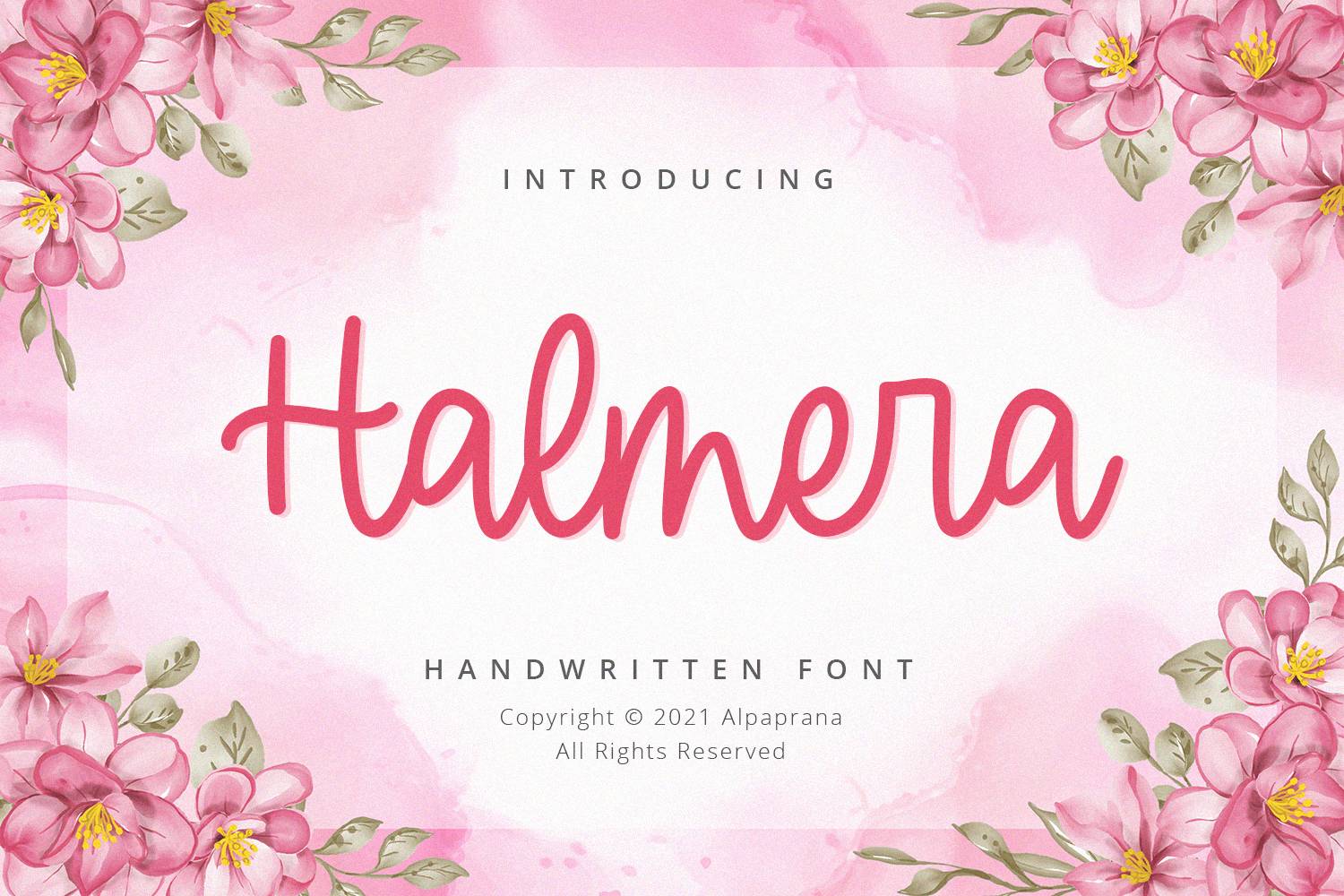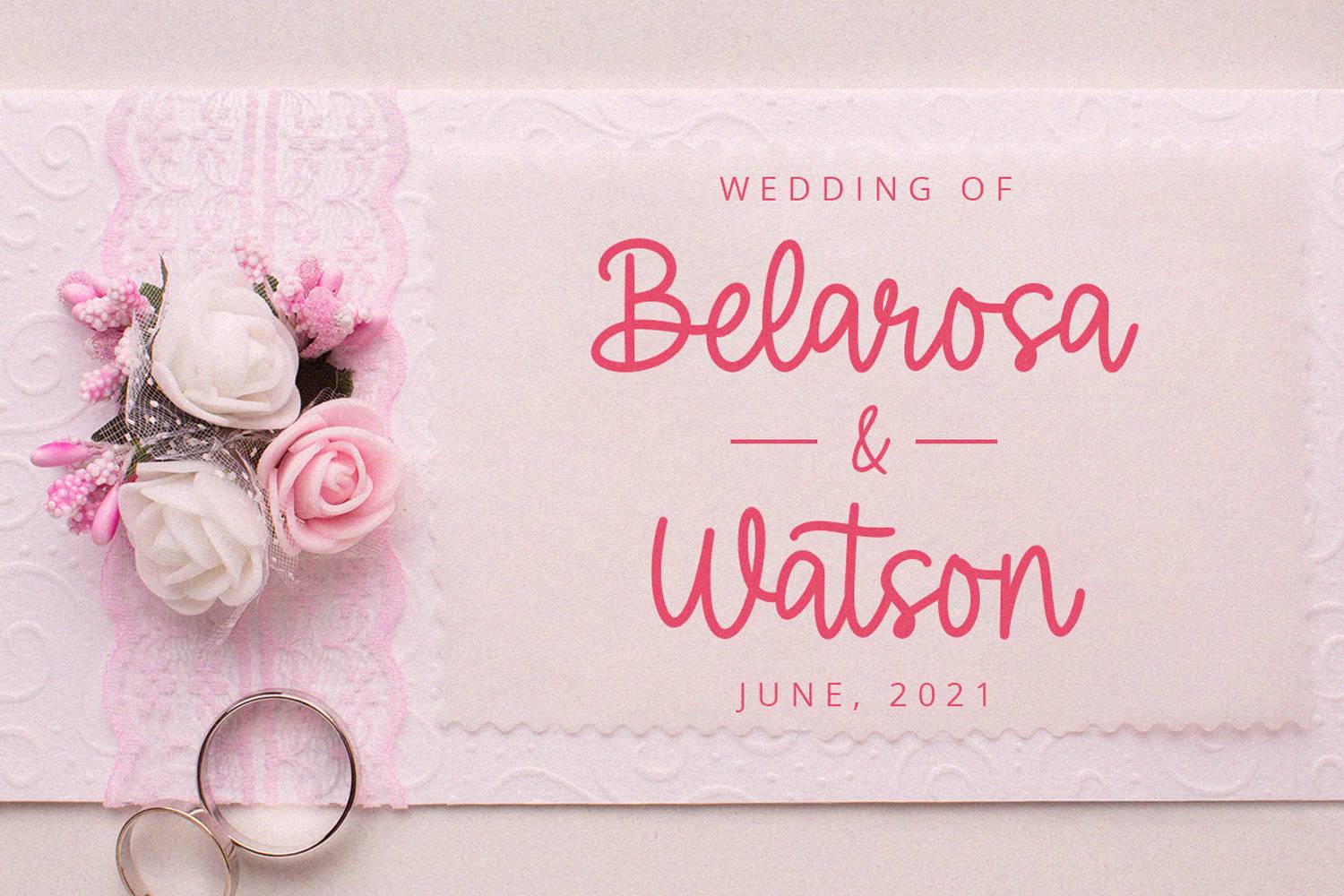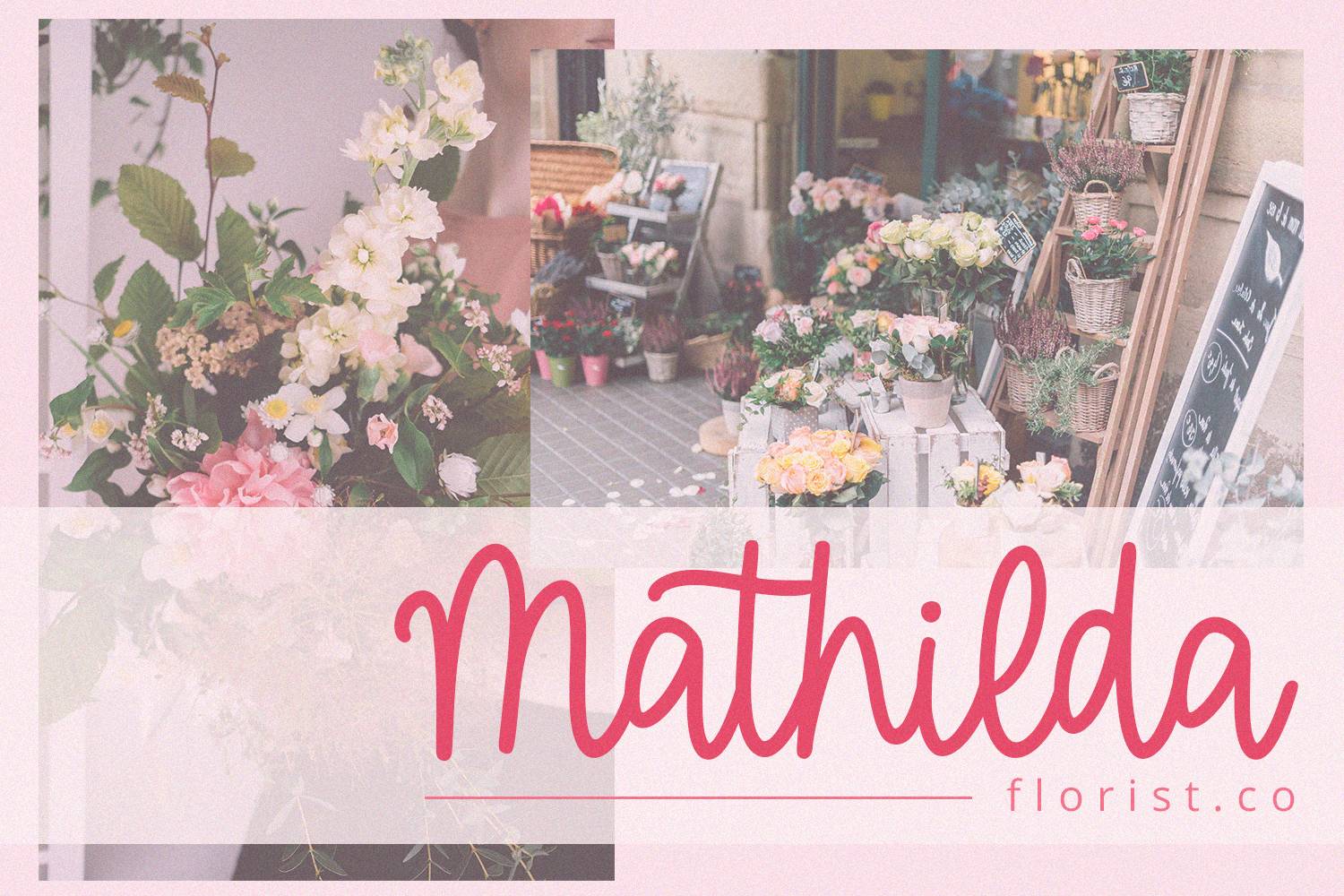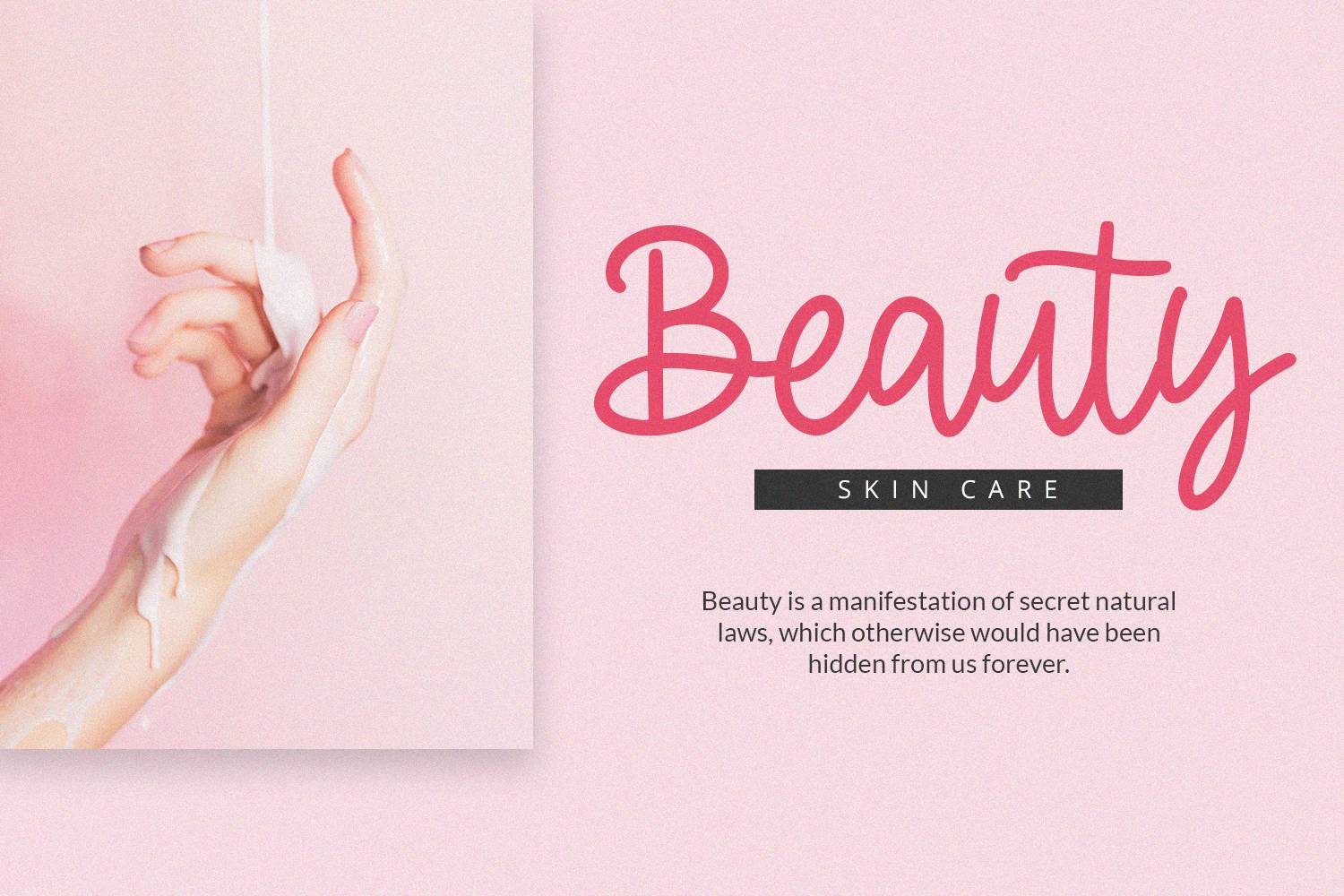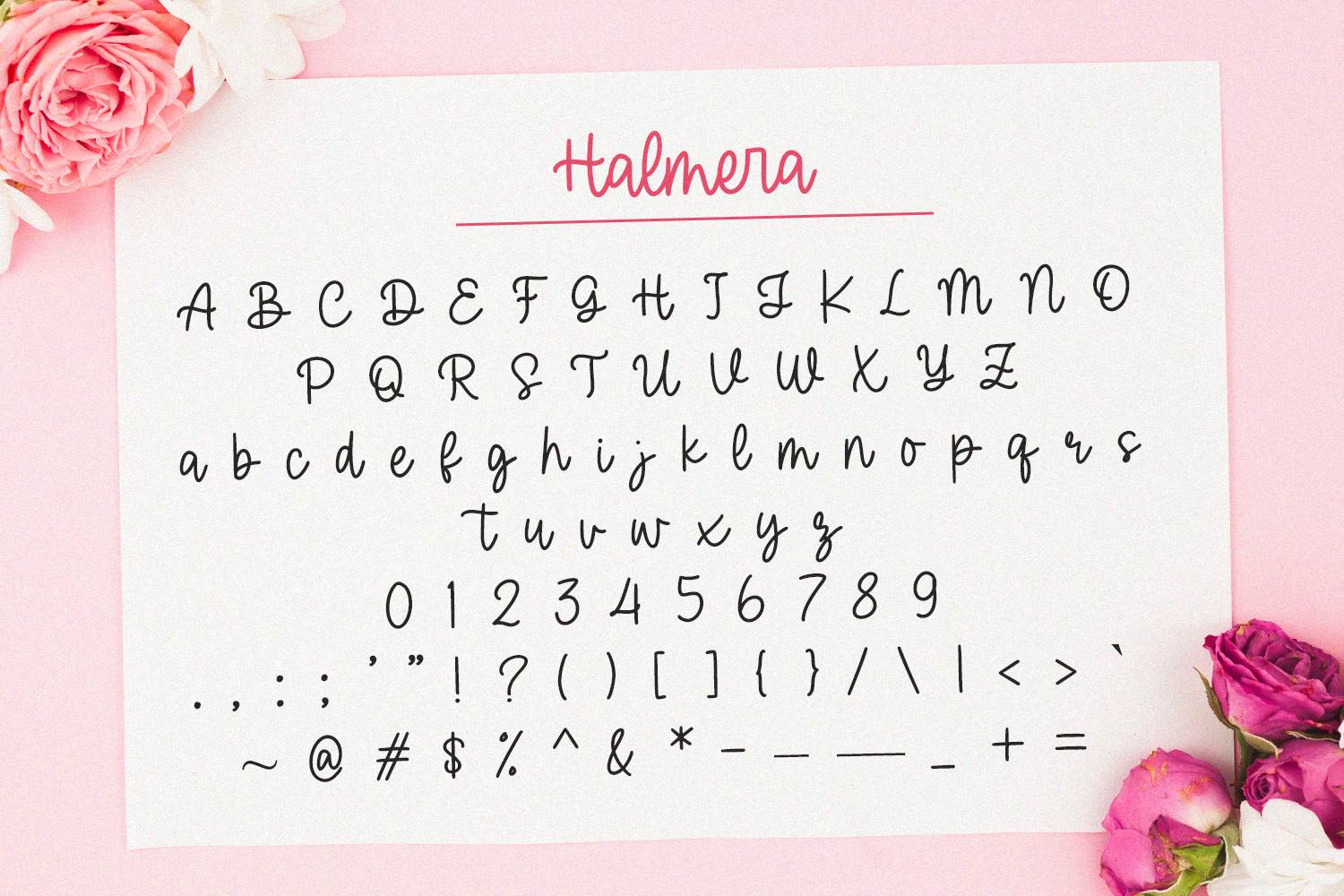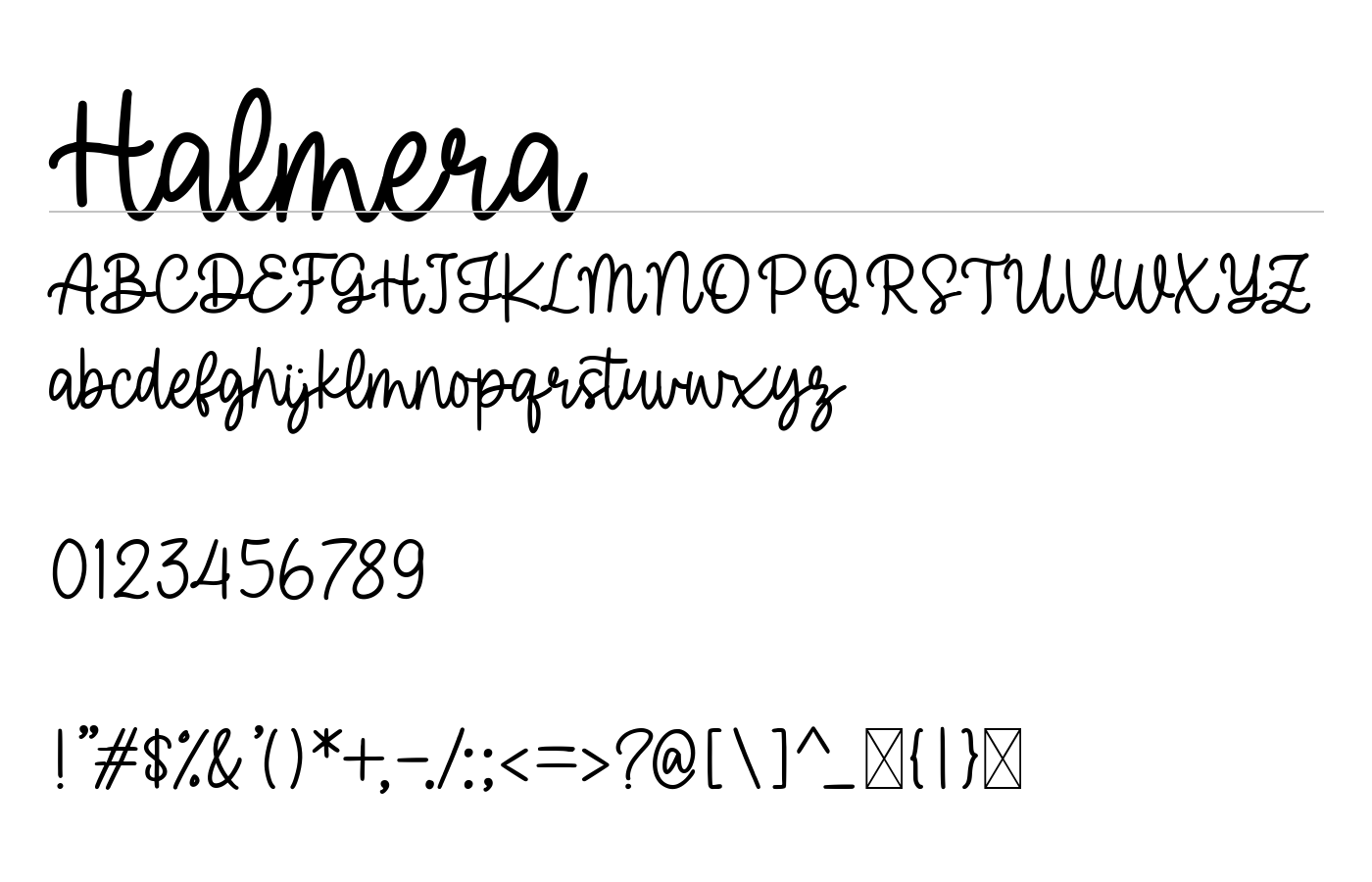
Halmera is a playful and elegant script font that features a smooth, handwritten style with medium weight and consistent stroke width. Its tall x-height and slightly rounded, flowing letterforms give it a friendly and approachable feel, making it ideal for creative branding, invitations, or casual headlines where a personal touch is desired. This font works well for projects that need a warm, inviting vibe without losing readability or style.
Halmera Font
About Halmera Font